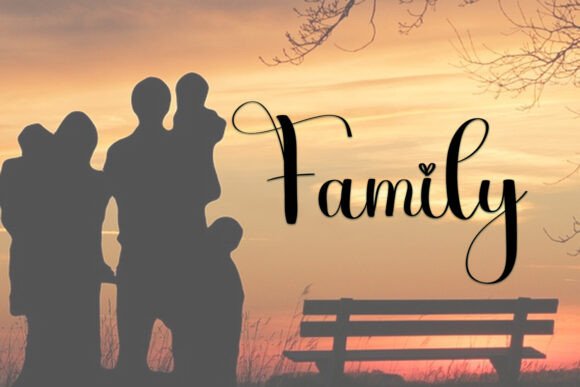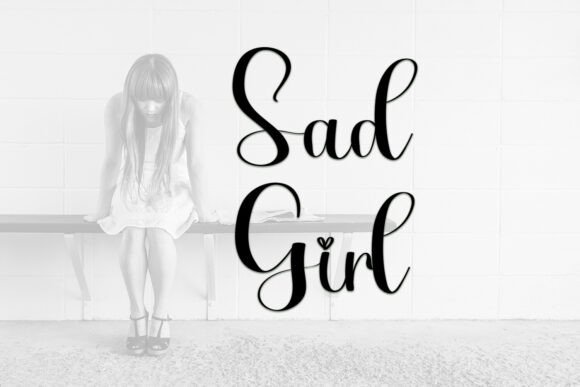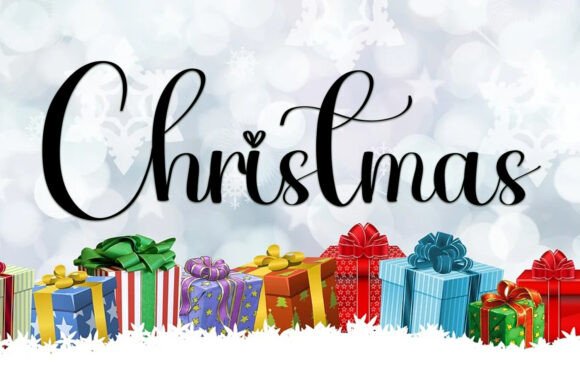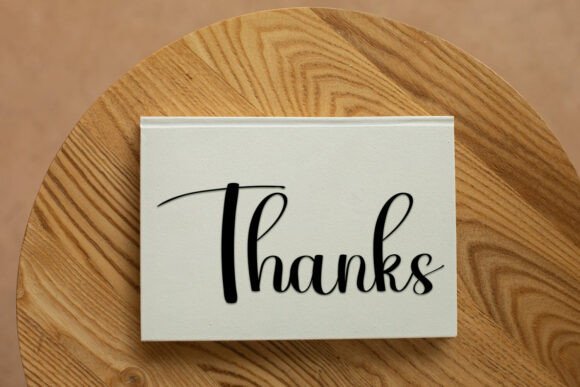
Discover the Elegance of Digital Wedding Font: Elevate Your Designs with a Touch of Sophistication
Are you searching for a font that embodies the perfect blend of charm, elegance, and simplicity? Look no further than the Digital Wedding font. This captivating typeface is designed to bring life to your design visions, making it an ideal choice for a wide range of creative projects. From flashy YouTube banners and captivating logo mock-ups to romantic wedding invitations, Digital Wedding is the perfect companion for designers and crafters seeking to infuse their work with a touch of sophistication.
The Charm of Digital Wedding Font
Digital Wedding font is steeped in charm and elegance, making it a versatile choice for various design applications. Its delightful simplicity ensures that it is a breeze to work with, while its unique character guarantees that your outputs stand out from the crowd. Whether you’re a professional designer or a crafty individual, Digital Wedding is designed to help you create stunning visual content that captures the essence of your brand or personal style.
Practical yet Beautiful
One of the standout features of Digital Wedding font is its practicality. While it’s undoubtedly a beautiful typeface, it’s also designed to be functional. This font is perfect for designers and crafters who want to create visually appealing content without sacrificing readability. Whether you’re working on a logo, brochure, or social media graphic, Digital Wedding ensures that your message is conveyed with clarity and style.
Enhance Your Crafts with Digital Wedding
Digital Wedding font is not just limited to digital designs; it’s also perfect for crafters who want to add a touch of elegance to their handmade projects. From wedding invitations and greeting cards to DIY crafts and scrapbooking, this font can be used to create a wide range of beautiful and unique projects. Its versatility and charm make it an excellent choice for anyone looking to add a personal touch to their crafts.
The Essence of Fresh, Distinctive Typography
Digital Wedding font represents the perfect fusion of simplicity and uniqueness, making it a standout in the world of typography. Its fresh and distinctive style ensures that your designs look modern and contemporary, while its elegance and charm add a touch of sophistication. Whether you’re looking to create designs that are bold and eye-catching or subtle and refined, Digital Wedding is the perfect choice.
Use Cases for Digital Wedding Font
So, where can you use Digital Wedding font? The possibilities are endless! Here are a few ideas to get you started:
- YouTube Banners: Create flashy and eye-catching banners that showcase your brand’s personality.
- Logo Mock-Ups: Design captivating logos that make your brand stand out.
- Wedding Invitations: Send out romantic and elegant invitations that set the tone for the big day.
- ID Cards: Add a touch of sophistication to identification cards and make them more visually appealing.
- Flyers: Create stunning flyers that grab attention and convey your message with clarity.
In conclusion, Digital Wedding font is a versatile and elegant typeface that’s perfect for designers and crafters seeking to elevate their designs. Its unique blend of simplicity and charm makes it an excellent choice for a wide range of creative projects. Whether you’re looking to create stunning visual content, add a touch of sophistication to your crafts, or simply want to explore the world of typography, Digital Wedding is an excellent choice. So why wait? Immerse yourself in the entrancing flair of Digital Wedding font and discover a world of creative possibilities.